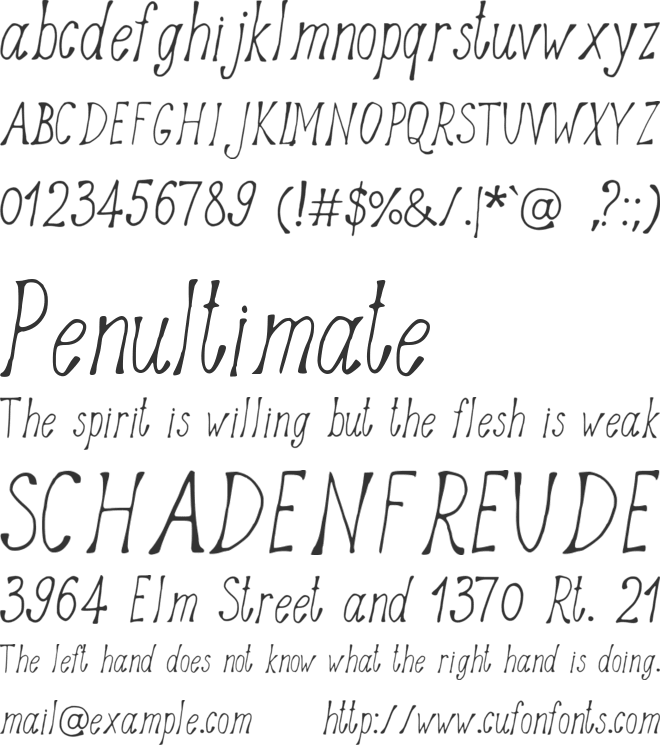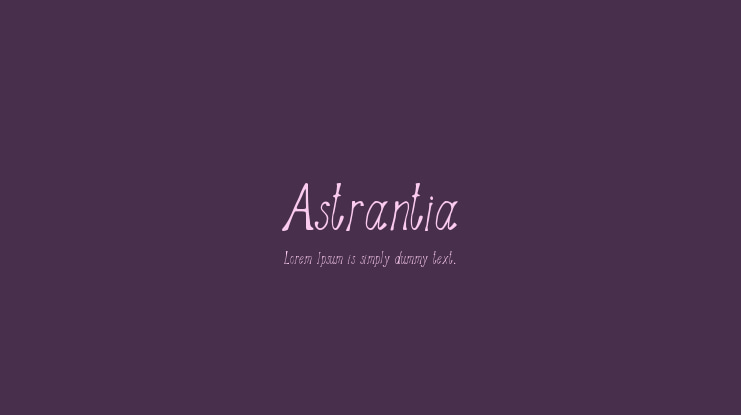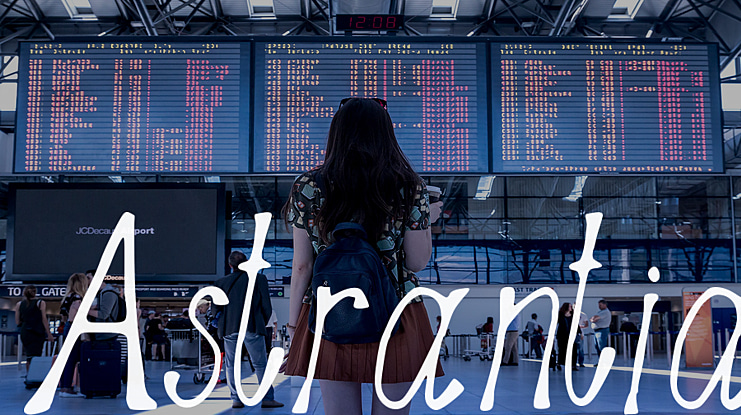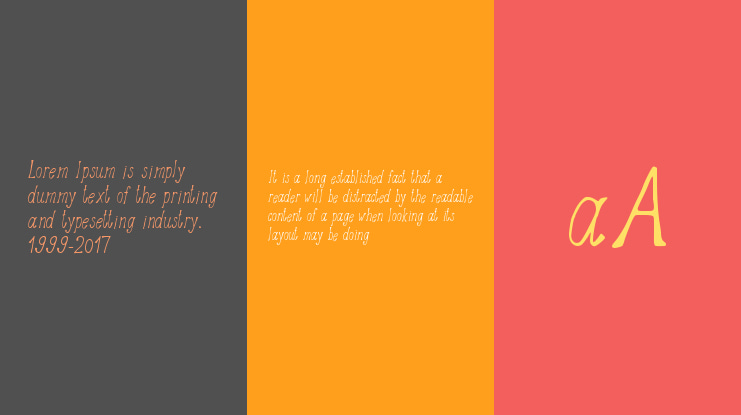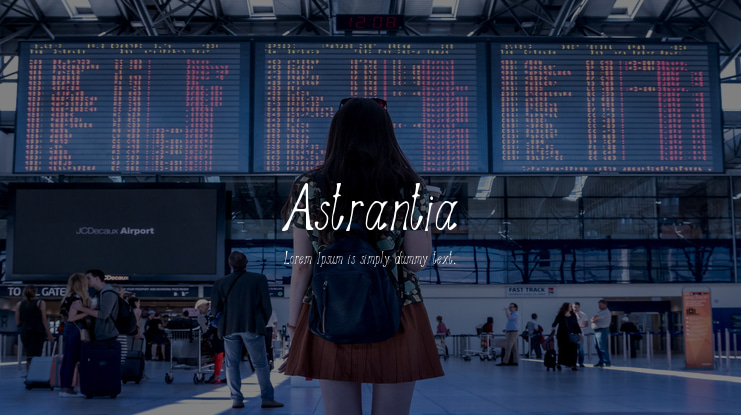
Astrantia Font
It’s a wonderful font with a unique, detailed and handmade look.
These fonts look amazing in all caps with a wide-set spacing if you want to try a classy look or beautiful on its own in the capital and lowercase letters for something completely timeless.
Perfect for gorgeous logos, displays, headers, invitations, save the dates, weddings, titles, web layouts, and branding, etc.